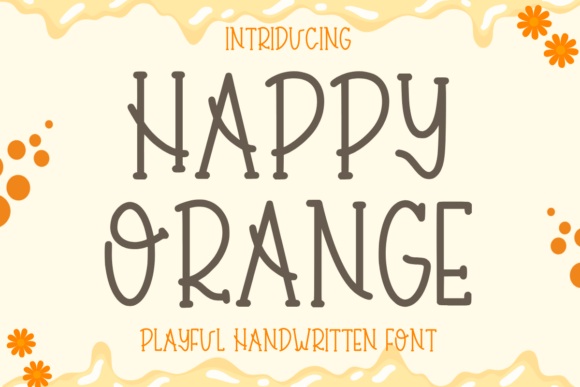
The Joy of Creating: Discover the Happy Orange Font
Have you ever found yourself lost in a world of creativity, surrounded by colorful pens, scissors, and paper, with the ultimate goal of bringing a smile to someone’s face? That’s exactly where I was when I stumbled upon the Happy Orange Font. This delightful handwritten font is more than just a tool – it’s a key to unlocking your full creative potential.
Happy Orange Font is the perfect companion for any crafty endeavor, from designing planners and stickers to creating greeting cards and more. Its playful style makes it an ideal choice for Cricut, sublimation, and DIY projects. Whether you’re a seasoned crafter or a beginner, this font is sure to bring a burst of happiness to your creations.
As a designer, you know that the right font can make all the difference in elevating your work. The Happy Orange Font is a valuable addition to any toolkit, allowing you to add a touch of whimsy and personality to your projects. So why settle for ordinary when you can have extraordinary with the Happy Orange Font?
Happy Orange Font Key Features
- Font Family: Happy Orange is a unique, hand-drawn sans-serif font designed to evoke feelings of happiness and warmth.
- Character Count: The font includes a wide range of characters, including uppercase and lowercase letters, numbers, and punctuation marks, ensuring comprehensive coverage for your design needs.
- Resolution: Optimized for high-resolution displays, Happy Orange font looks stunning on retina screens and other high-pixel-density devices.
- Size: The font is available in multiple weights, from Light to Bold, allowing you to choose the perfect style to match your design’s tone and atmosphere.
- Unique Characteristics: Happy Orange font features a distinctive, playful feel with subtle imperfections, giving your designs a human touch and visual interest.
Designer Review: Happy Orange Font
Overall, I have mixed feelings about the Happy Orange Font. While it has some great qualities, it also has some limitations that make it less versatile than I’d like.
- Fun and playful vibe: The Happy Orange Font is perfect for creating a lighthearted and approachable atmosphere.
- Good for children’s content: The font’s friendly and approachable nature makes it ideal for children’s books, websites, or apps.
- Customizable: The font comes in various weights and styles, making it easy to adjust the look to suit your needs.
- Limited legibility at smaller sizes: While the font looks great at larger sizes, it can become difficult to read at smaller sizes.
- Not suitable for formal content: The font’s playful nature makes it less suitable for formal or professional content.
- No language support: The font only supports Latin-based languages, which limits its use for multilingual projects.
Overall, I think the Happy Orange Font is a great choice for certain types of projects, but it may not be the best fit for every design need. With some careful consideration of its limitations, it can be a fun and effective tool in your design toolkit.
Happy Orange Font is ideal for creating playful and energetic designs. Use it for:
– Children’s book covers
– Party invitations
– Advertising materials
Remember to pair Happy Orange Font with other fonts to achieve a balanced and visually appealing design.
Playfair Display is a luxurious and elegant serif font, perfect for high-end designs, such as wedding invitations, luxury brand logos, and magazine covers. It has a more refined and sophisticated look compared to Happy Orange Font, which is more playful and energetic.
Lato is a modern sans-serif font that is highly legible and versatile. It’s ideal for use in digital products, such as websites, mobile apps, and software interfaces. Compared to Happy Orange Font, Lato is more straightforward and doesn’t have the same level of visual energy.